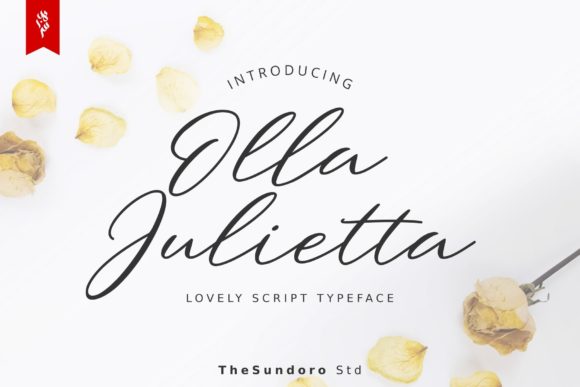
Introducing Olla Julietta, the captivating script font that will elevate your designs to new heights. Crafted with an elegant and flowing style, it exudes a timeless beauty that will leave a lasting impression on your audience.
Whether you're creating wedding invitations that evoke a sense of romance or designing logos that demand attention, Olla Julietta is the perfect choice. Its varying baseline and smooth lines add a touch of whimsy, while its gorgeous glyphs and stunning alternates provide endless creative possibilities.
Imagine your home listing standing out from the crowd with a touch of Olla Julietta's charm. Its flowing curves create an inviting atmosphere that welcomes potential buyers. Or envision your business cards becoming a conversation starter, leaving a lasting impact with Olla Julietta's sophisticated elegance.
Every letter of Olla Julietta is a work of art, carefully designed to capture the essence of handwritten beauty. It's the perfect font for adding a touch of personality and flair to your designs.